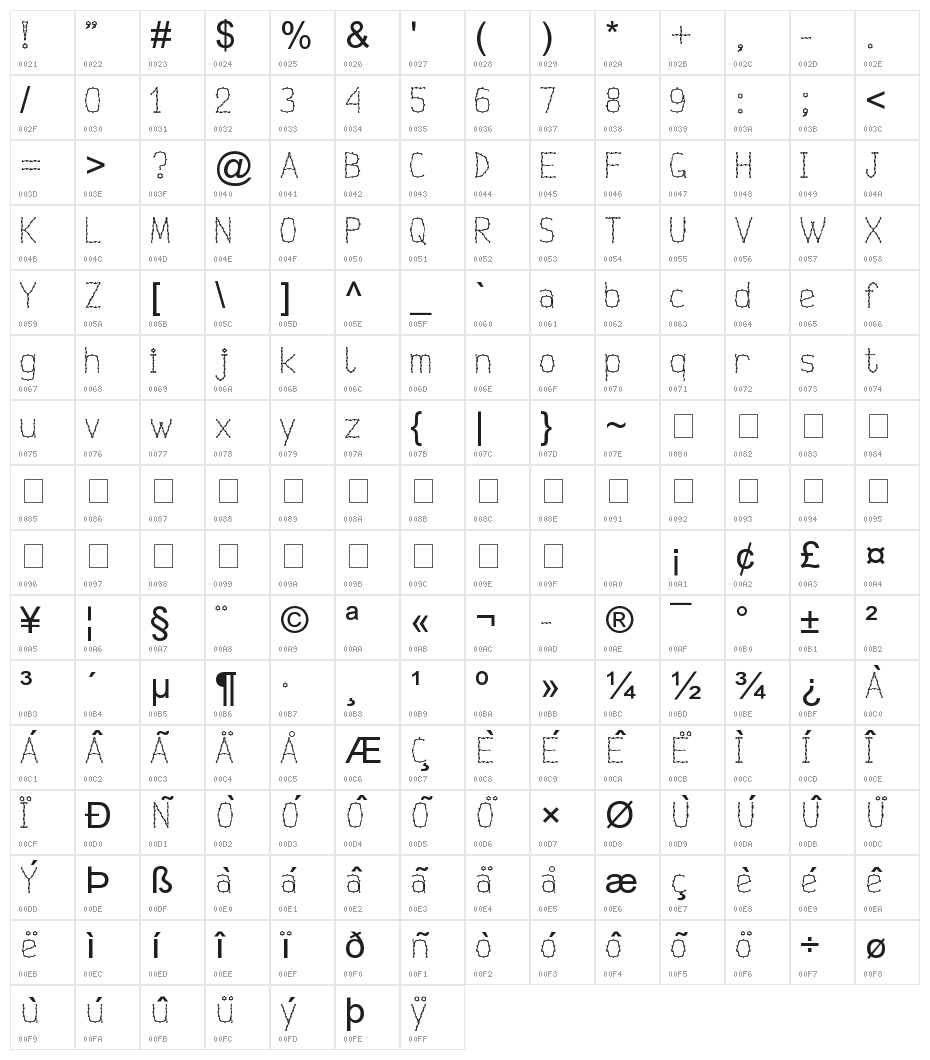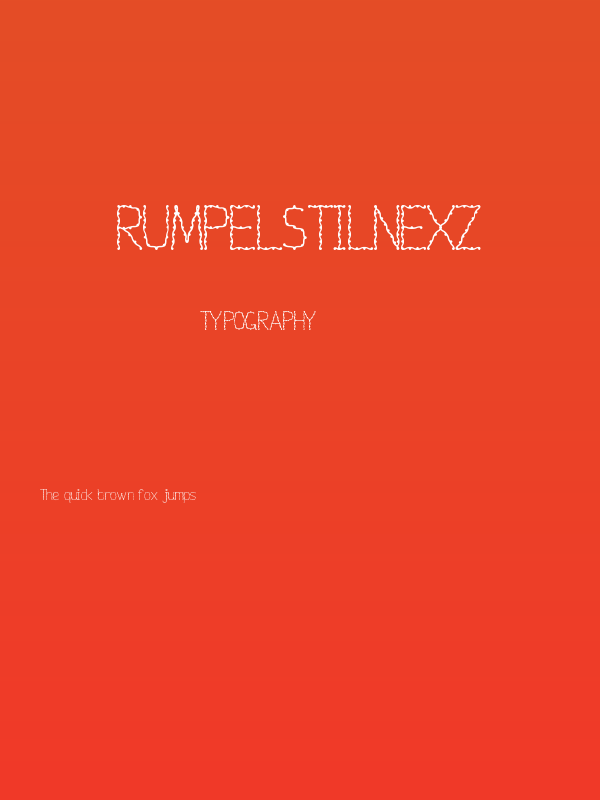
Rumpelstilnexz Font
Rumpelstilnexz Description
This font features a whimsical and playful design with a unique, wavy outline that gives each character a dynamic and lively appearance. The letters are crafted with a hand-drawn aesthetic, creating a sense of movement and energy. The uppercase and lowercase letters maintain a consistent style, with rounded edges and a slightly irregular form that adds to the font's charm. The numerals and special characters follow the same design principles, ensuring a cohesive look across all elements. This font is perfect for projects that require a fun and informal touch, such as children's books, playful branding, or creative invitations.
| Use Case | Headlines, Logos, Creative Invitations |
| Proposed Projects | Ideal for children's books, playful branding, creative invitations, and informal designs. |